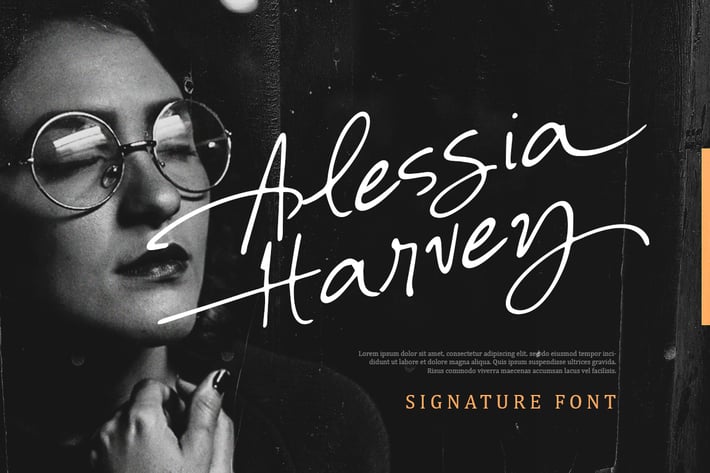
Alessia Harvey - Signature Font
This type of font perfectly made to be applied especially in logo, and the other various formal forms such as invitations, labels, logos, magazines, books, greeting / wedding cards, packaging, fashion, make up, stationery, novels, labels or any type of advertising purpose.
+ uppercase & lowercase
+ numbers and punctuation
+ multilingual
+ alternates and ligatures